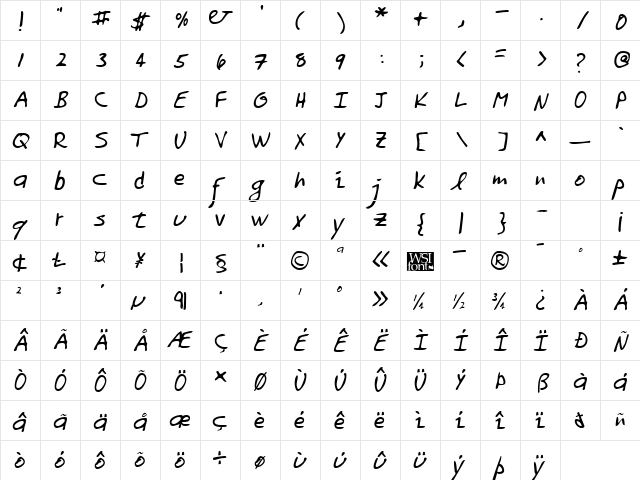
KathrynsHand Regular
Design Context for KathrynsHand Typeface
KathrynsHand flows with the natural rhythm of handwritten lettering, making it ideal for designs that call for warmth and personal expression.
Font Pairing: Combine KathrynsHand with a simple geometric sans for maximum contrast — the tension between flowing curves and clean structure is a classic typographic pairing.
Pro Tip: Use KathrynsHand for short runs of text — names, titles, or taglines. Extended body copy in script faces tires the eye quickly.